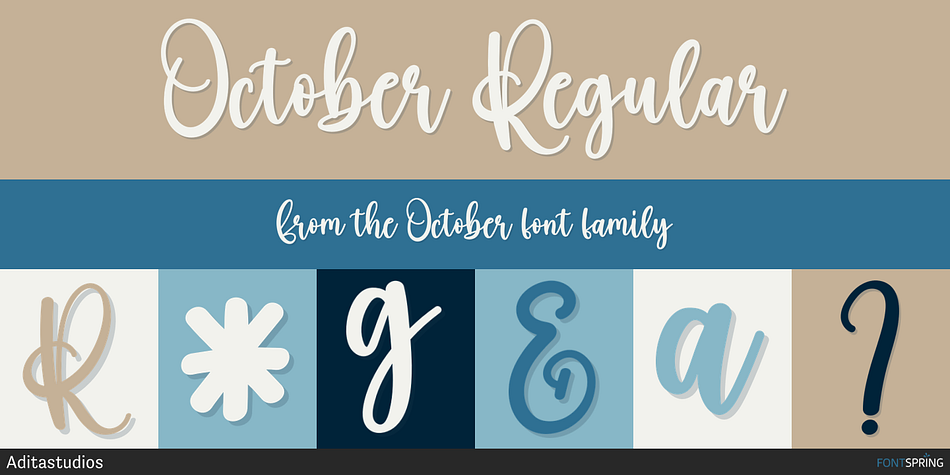
October Regular
October is a modern calligraphy font family published by Aditastudios.
October is a sweet and cursive handwritten font. This gentle font will look gorgeous on a variety of design ideas. It will add a joyful and romantic touch to each of your projects!